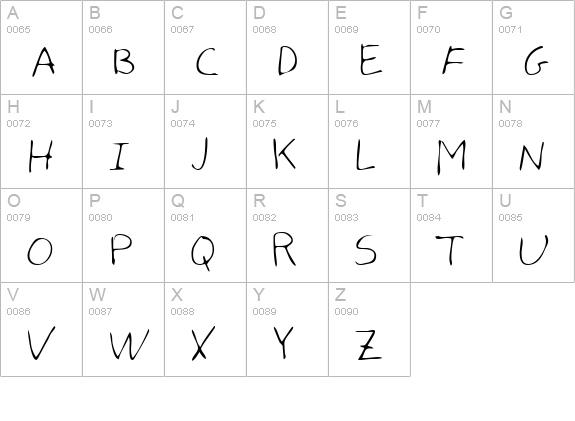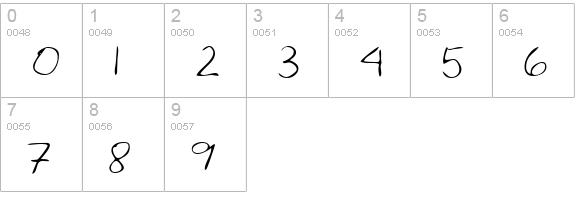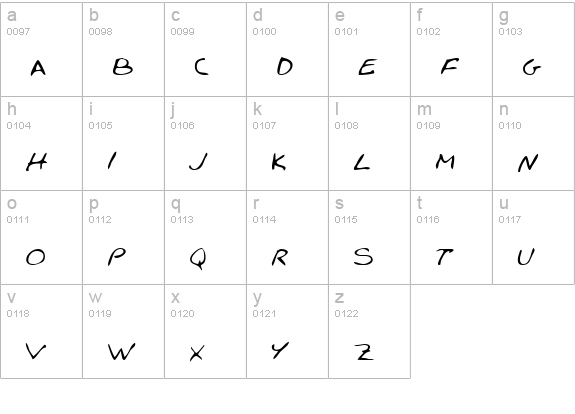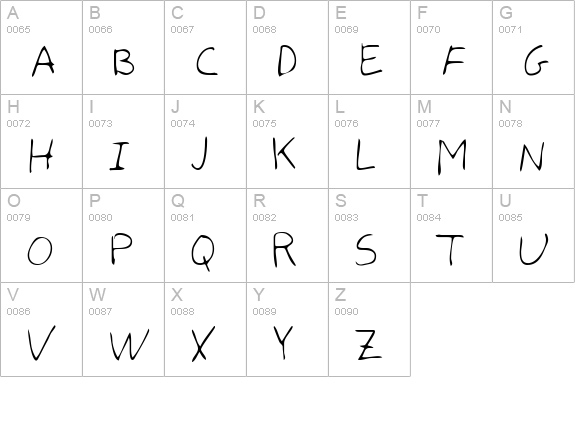
ChasesHand Regular Font Details
ChasesHand Regular is the standard, neutral variant in the ChasesHand typeface family \xE2\x80\x94 well suited to general body text, paragraphs, and standard typographic work.
ChasesHand Regular font is a versatile and elegant typeface that exudes sophistication and charm. With its graceful strokes and flowing curves, this font is perfect for a wide range of design projects, from branding to invitations to packaging. The free-spirited and organic feel of ChasesHand Regular adds a touch of warmth and personality to any text or headline. This beautiful font is freely available to download at FontsMarket.com, making it easily accessible for all designers and creatives looking to elevate their work with a touch of elegance. Don't miss out on the opportunity to add ChasesHand Regular to your font collection and bring a touch of timeless beauty to your designs.